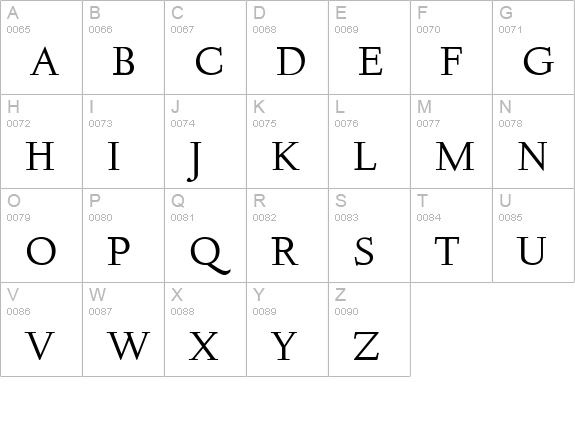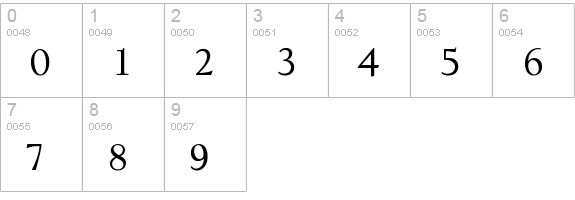
Deepdene Roman is a timeless and elegant font that exudes sophistication and class. Its clean lines and classic design make it perfect for a wide range of projects, from formal invitations to professional documents. With its graceful curves and balanced proportions, Deepdene Roman is sure to add a touch of refinement to any design. Best of all, Deepdene Roman is available for free download at FontsMarket.com. This means that you can easily access this beautiful font and use it in your projects without having to worry about any additional costs. Whether you're a designer looking for a versatile and stylish font or someone who simply appreciates the beauty of well-crafted typography, Deepdene Roman is a fantastic choice that won't break the bank. Download it today and elevate your designs with this exquisite typeface.